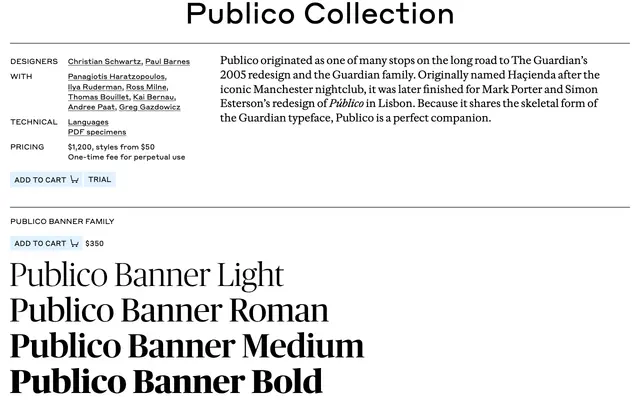
Publico
A vast newspaper serif system by Christian Schwartz and Paul Barnes, conceived alongside The Guardian's 2005 redesign and finished for Publico in Lisbon. Banner, Headline, Text and Mono cuts across condensed widths.
An expansive serif system from Christian Schwartz and Paul Barnes with a long collaborator list, originating during work towards The Guardian's 2005 redesign (then named Hacienda) and finished for Mark Porter and Simon Esterson's redesign of Publico in Lisbon. Seven sub-families span Banner, Banner Condensed and Banner X Condensed for display, Headline and Headline Condensed for mastheads, Text for body, and Text Mono for tabular and code-adjacent work. Shares the skeleton of the Guardian typeface, making it a natural serif companion for newspapers, magazines and large editorial identities.
Commercial Type describe Publico as originating en route to The Guardian's 2005 redesign, originally named Hacienda after the Manchester nightclub, then finished for Mark Porter and Simon Esterson's redesign of Publico in Lisbon. It shares the skeleton of the Guardian typeface and acts as its serif companion.